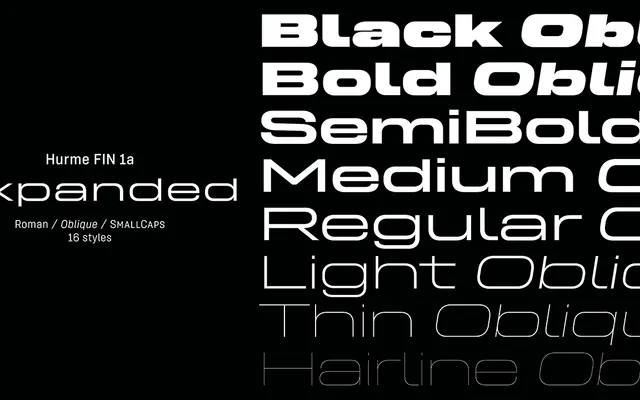
Hurme FIN 1a Expanded
An expanded-width cut of a monolinear grotesque family spanning nine widths and eight weights, with obliques and broad Latin language coverage.
Part of the wider Hurme FIN system, this expanded width variant offers eight weights from Hairline to Black, each with a matching oblique, giving 16 styles in total. The design is monolinear with horizontal stroke terminals, short ascenders and descenders, and an x-height that scales proportionally across width variants. OpenType features include small caps, stylistic alternates, oldstyle figures, tabular lining figures and a slashed zero.
A simplified monolinear sans-serif with horizontal stroke terminals and consistent stroke width throughout, placing it firmly in the grotesque category. The expanded width variant sits within a large nine-width design space.